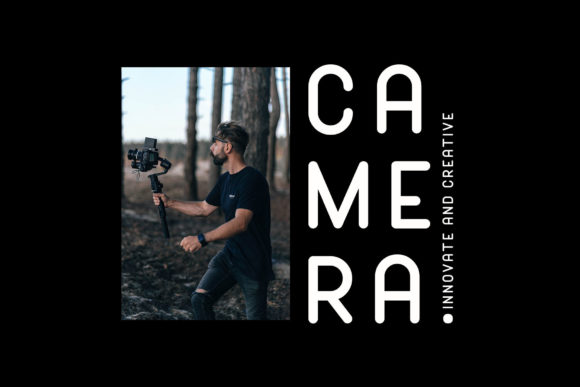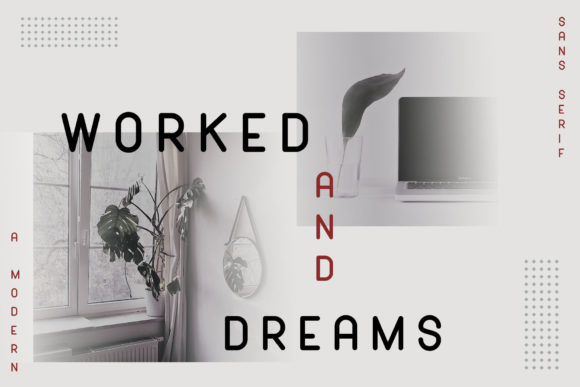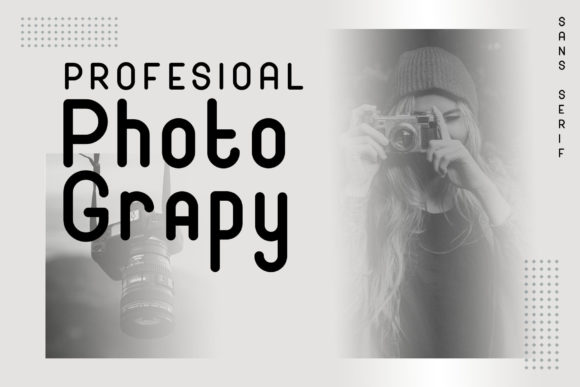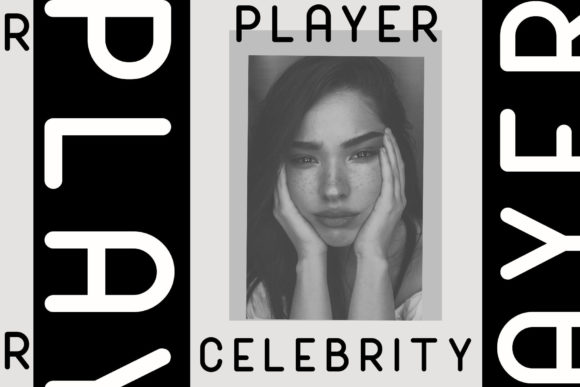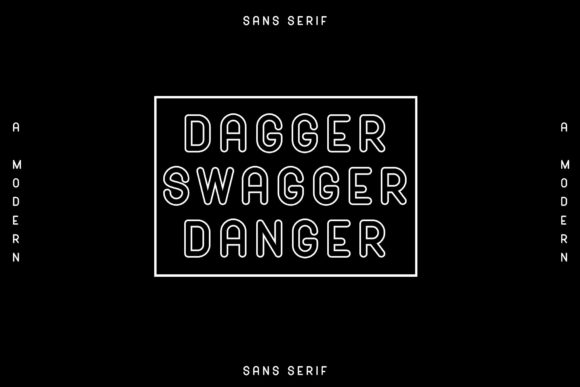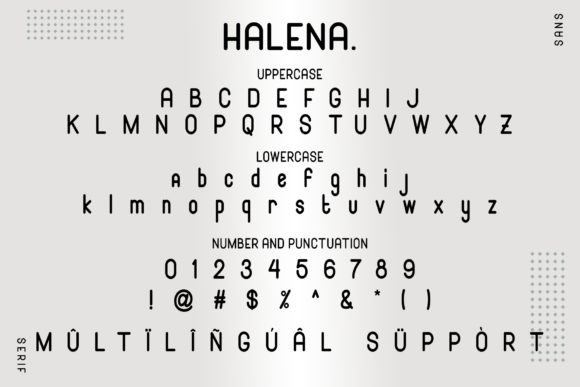
Introduction to Halena Font
Halena is a modern and adaptable sans serif font.
Suitable to a wide variety of designs due to its neat and simple style, this font has the potential to become your favorite go-to font, no matter the occasion .
Halena Font offers exceptional quality and versatility, making it a valuable addition to your design toolkit. Whether you’re creating for personal projects or commercial use, Halena Font delivers professional results.